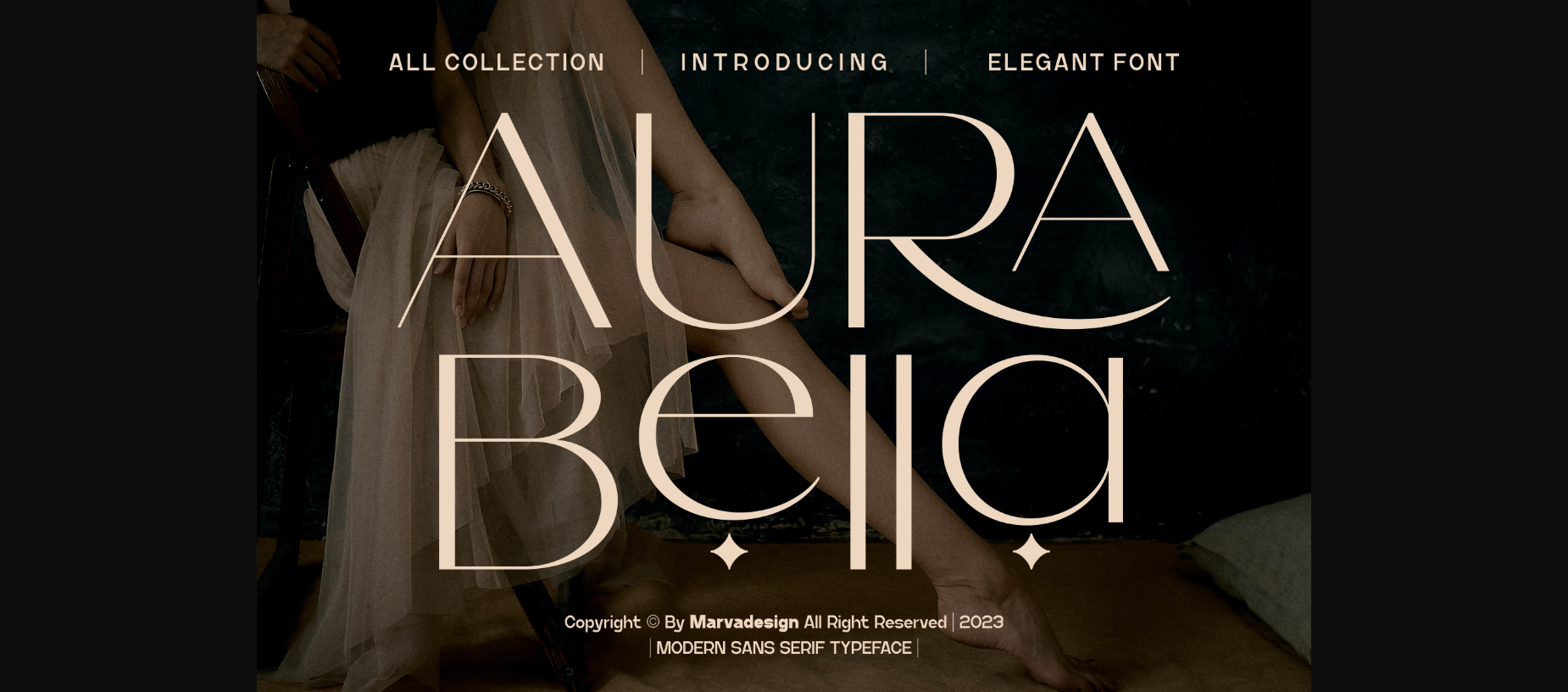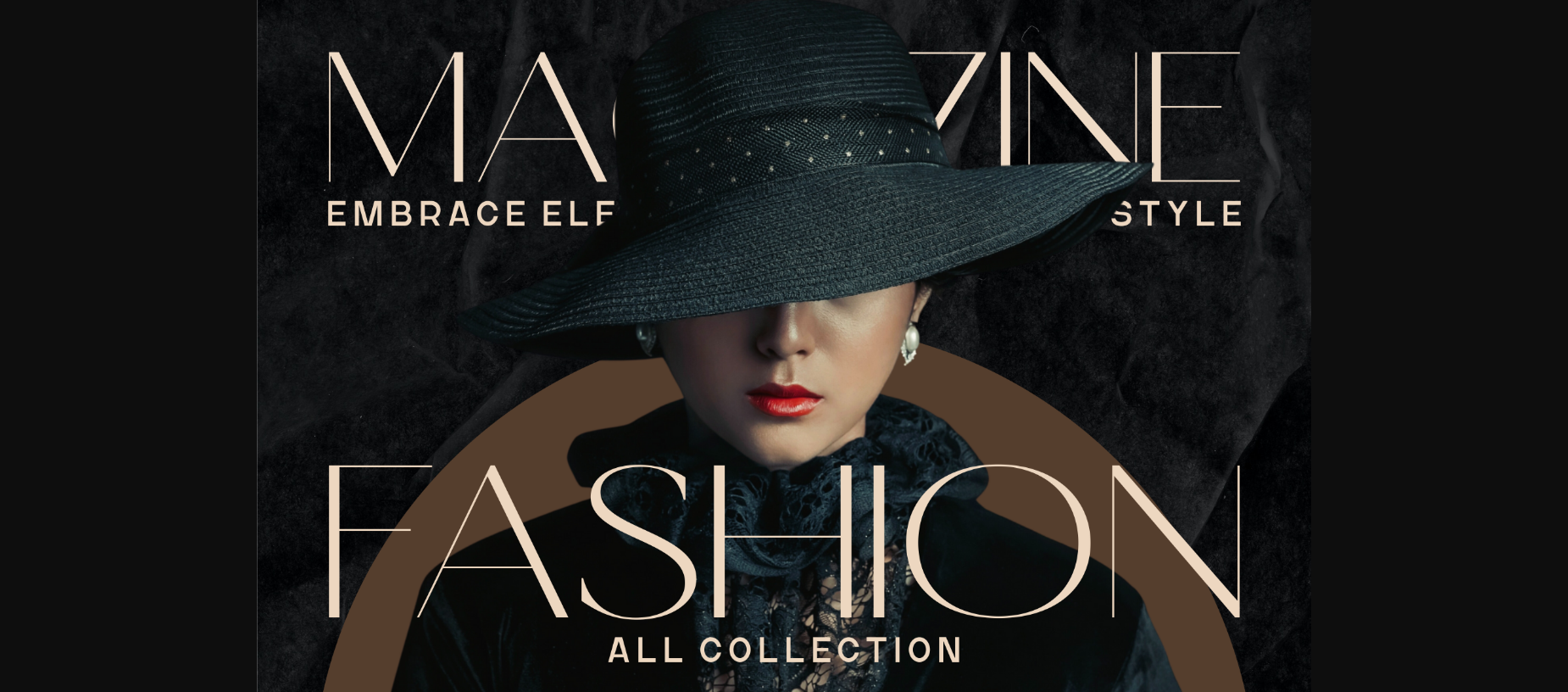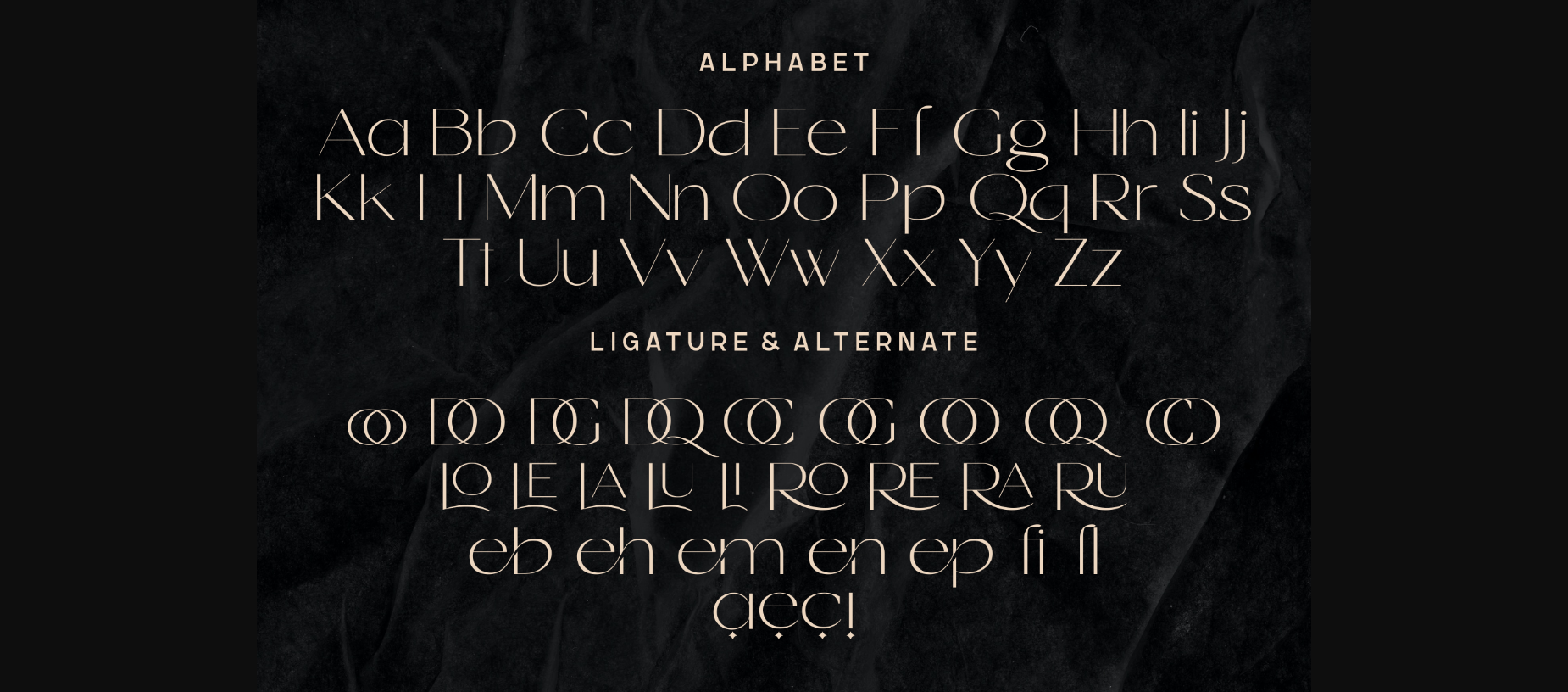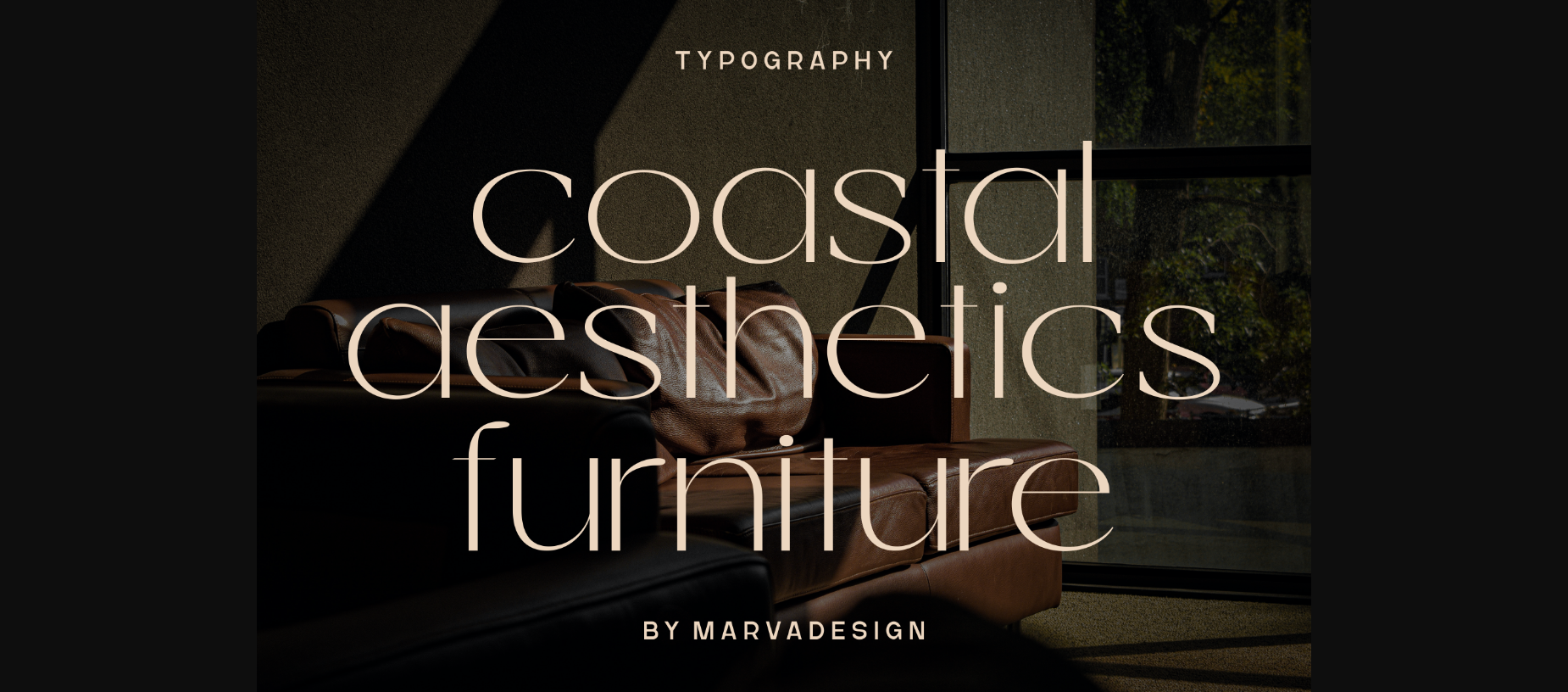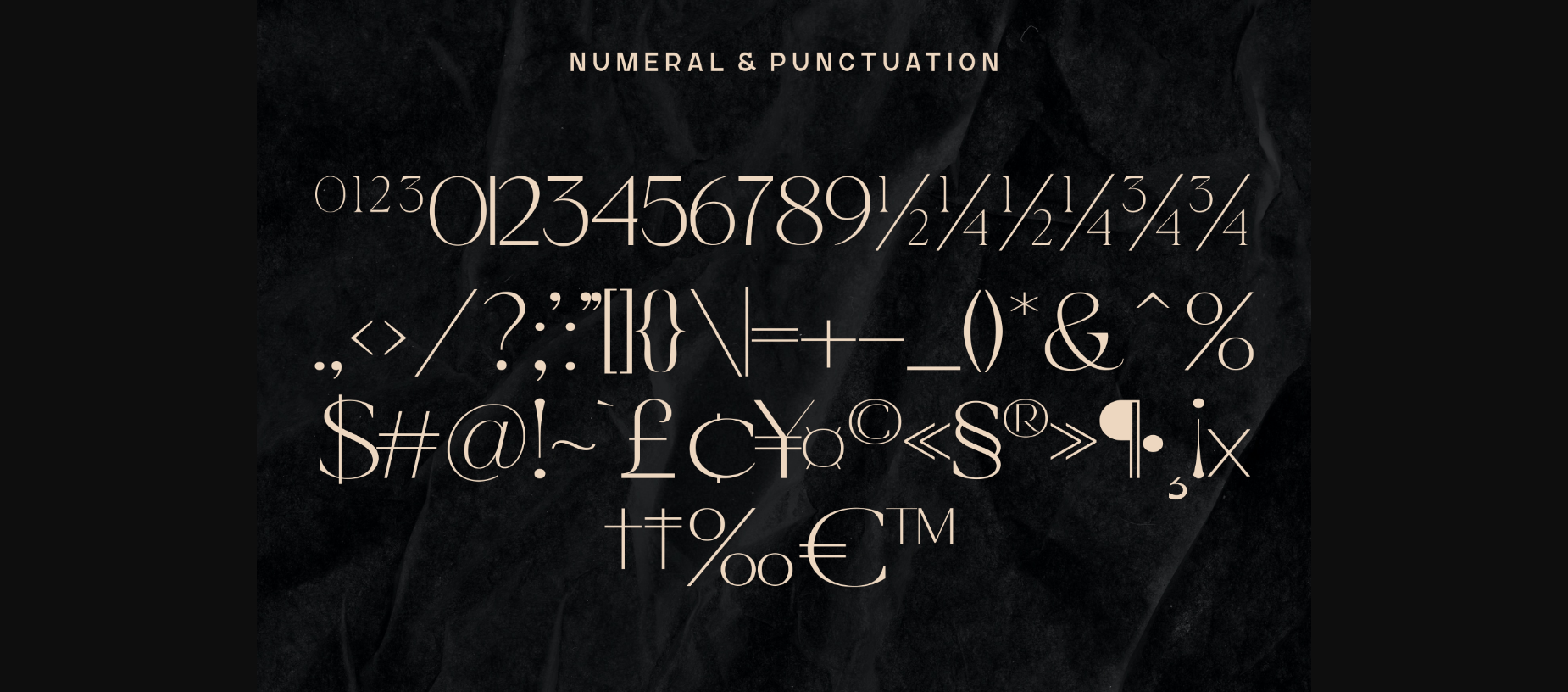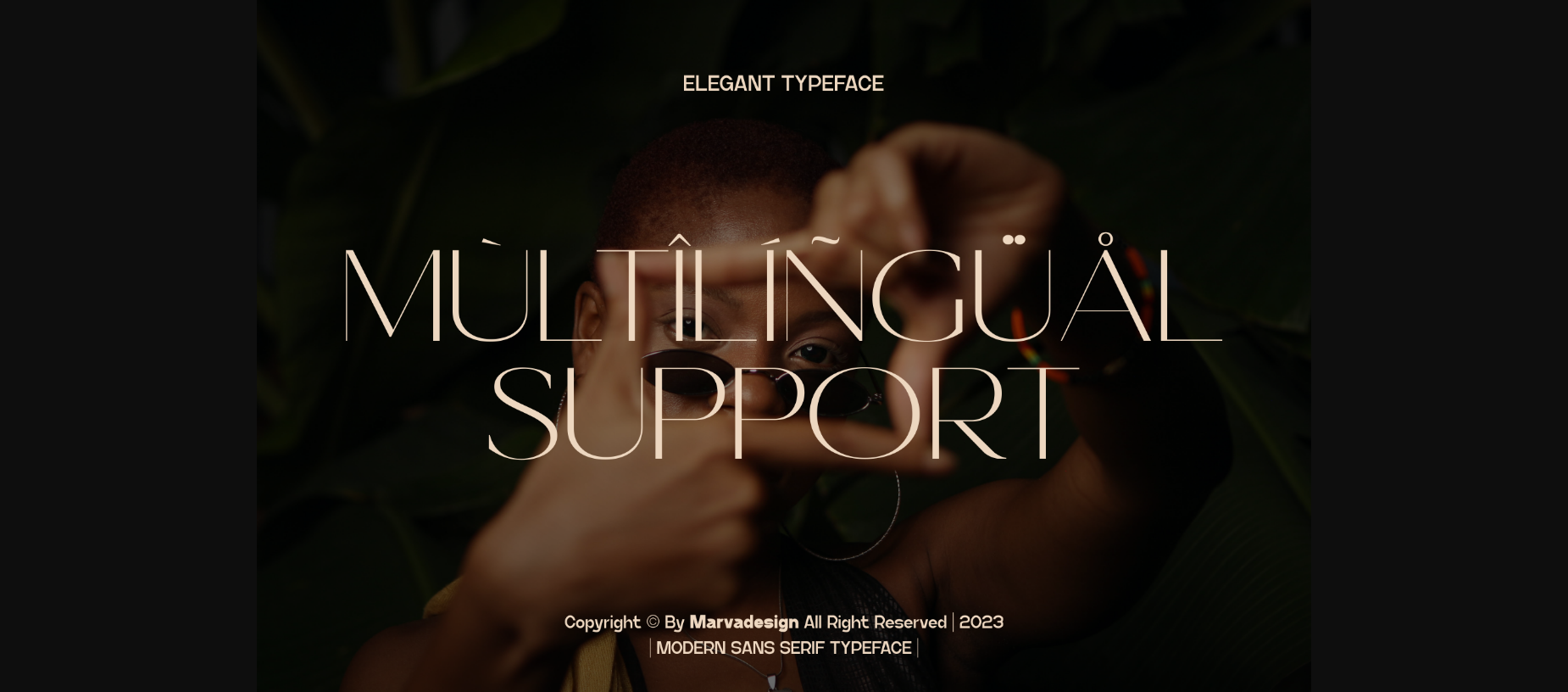
About Aura Bella Font
Aura Bella is a classy and stylish sans-serif font. Its elegant design adds a touch of sophistication to any project. Easy to read and versatile, it’s perfect for various uses like logos, branding, and more.